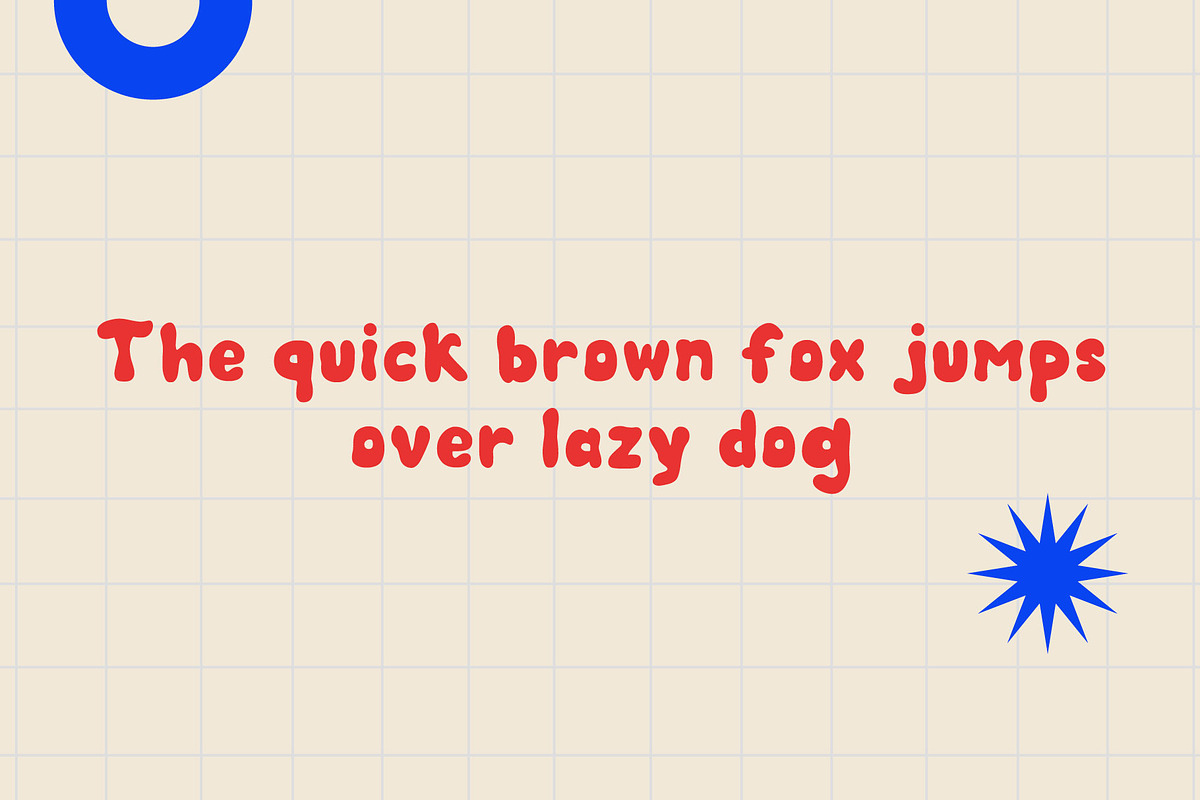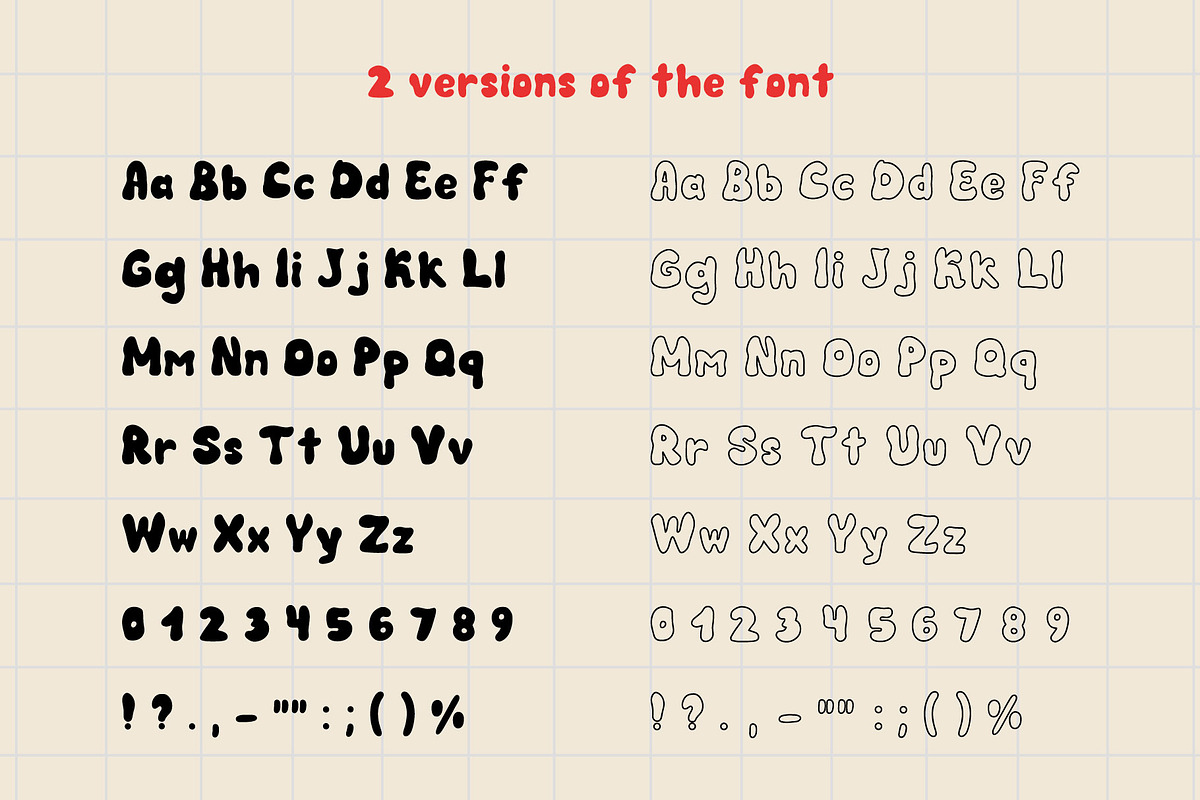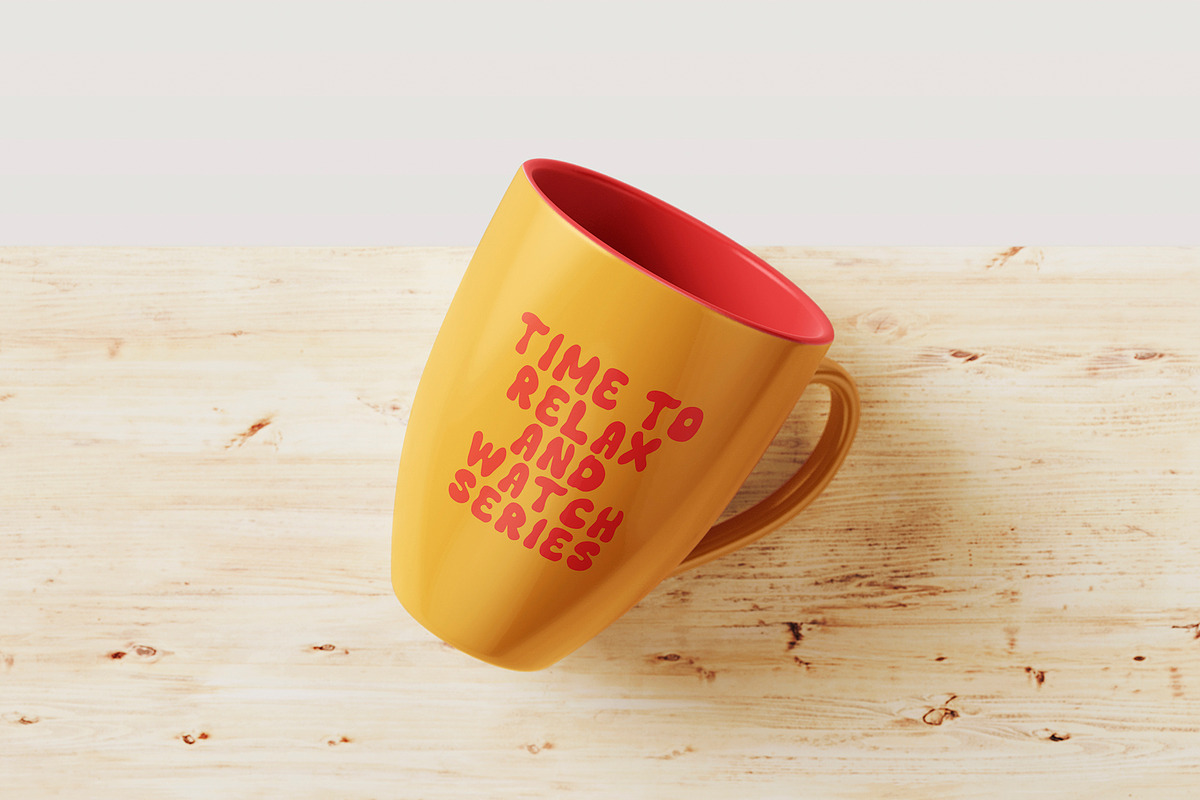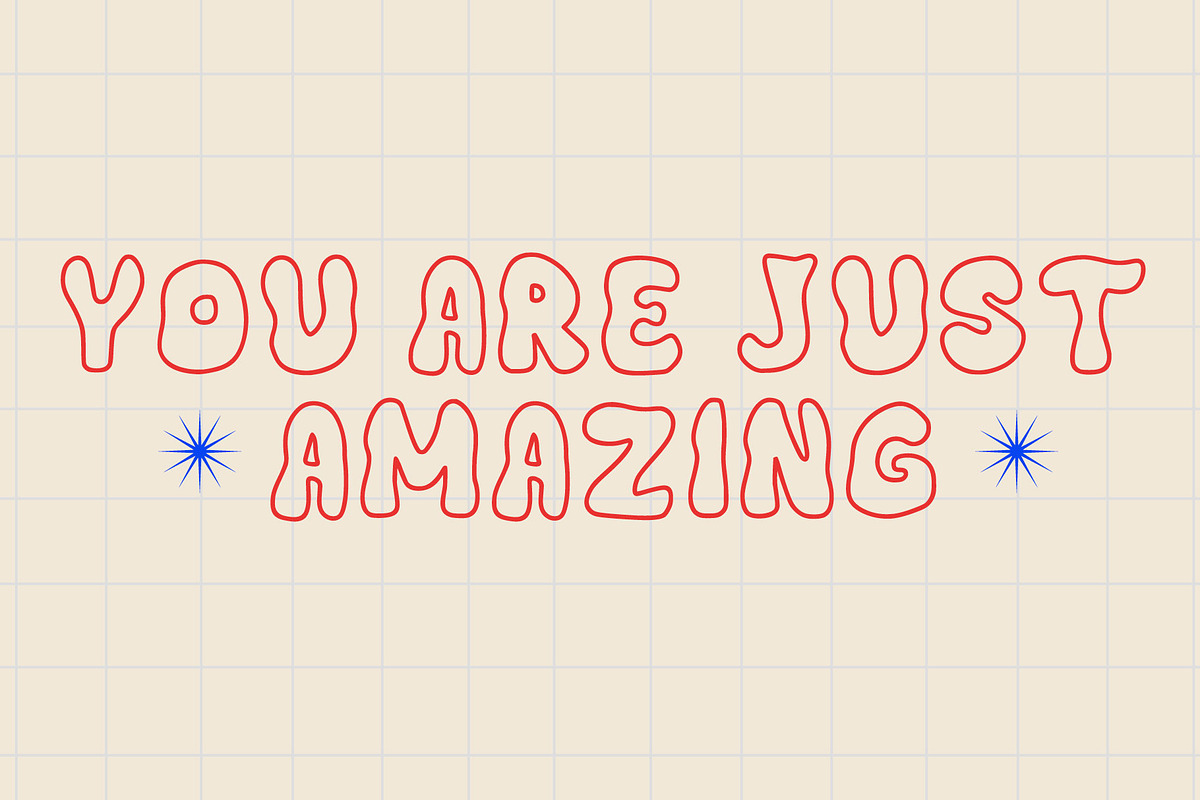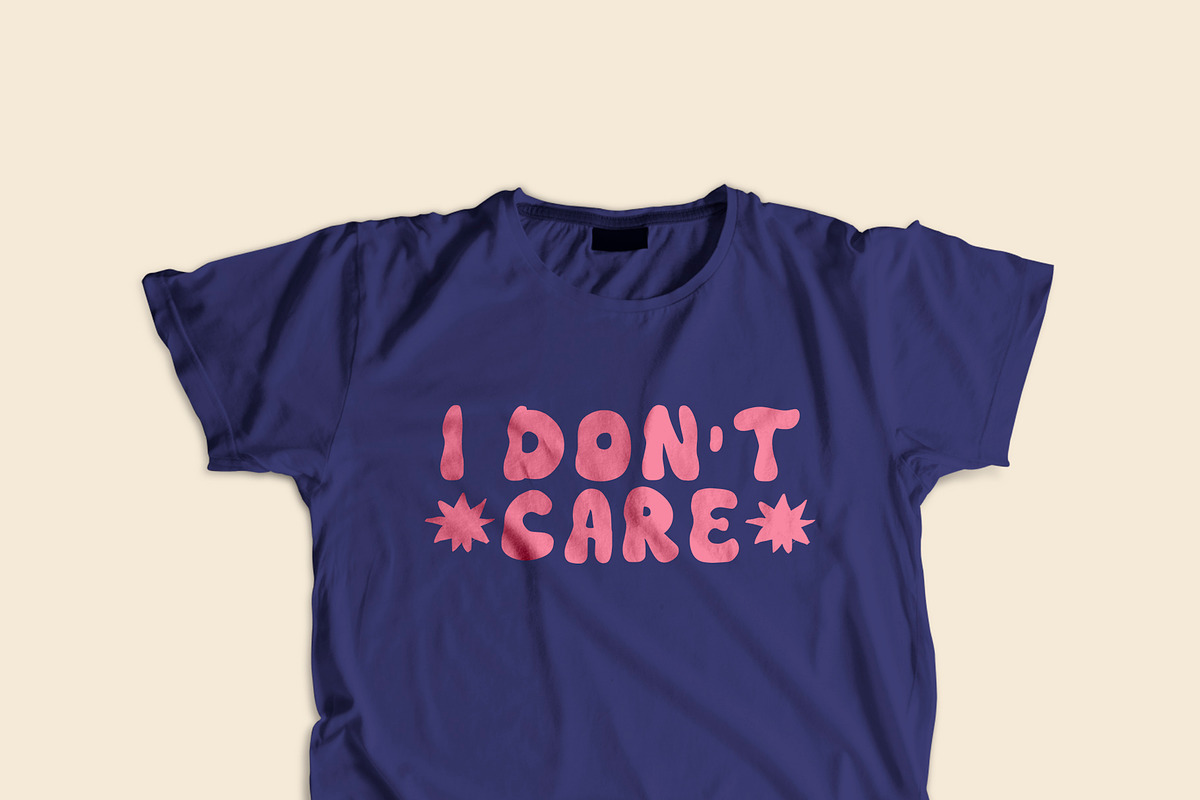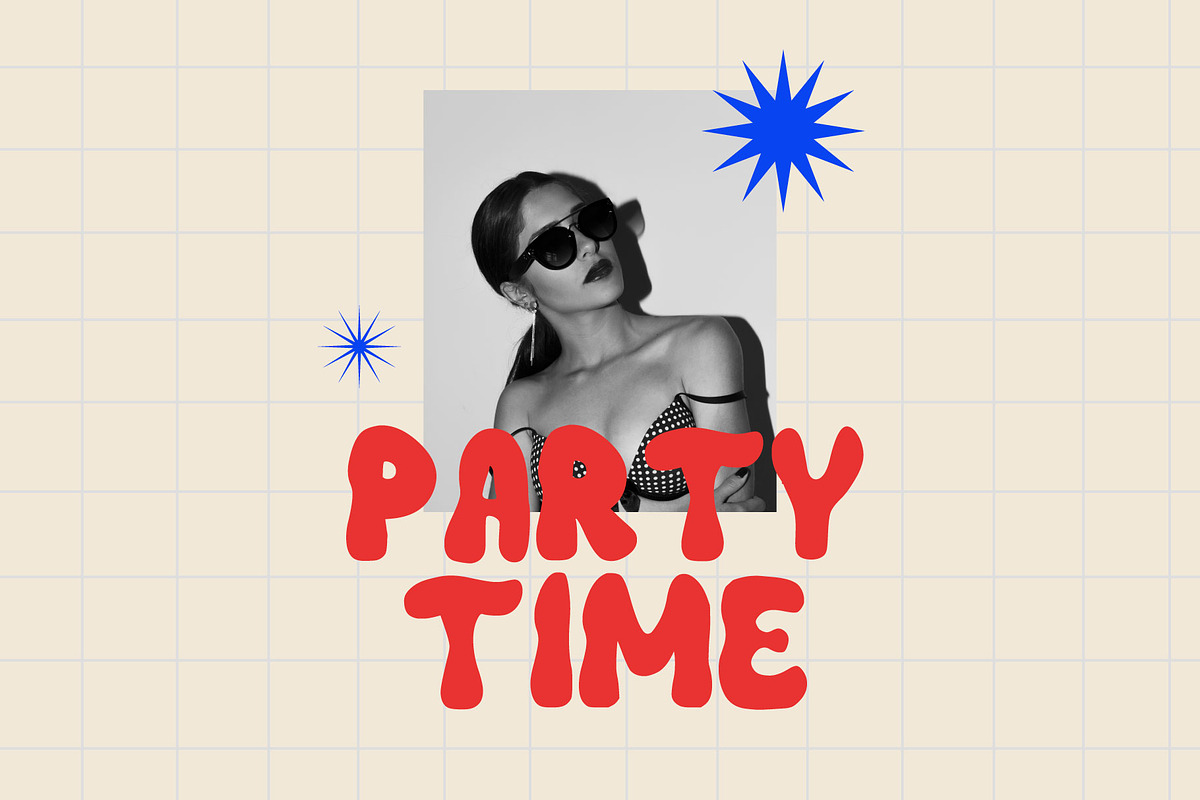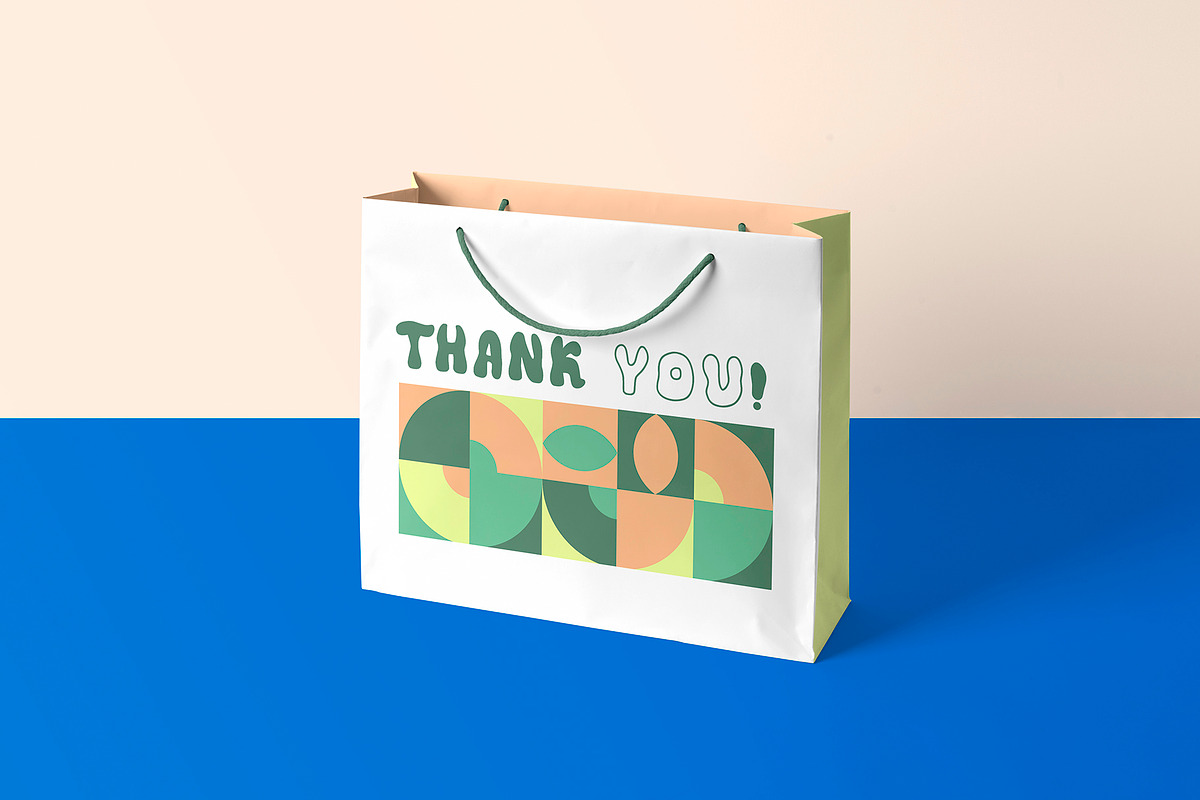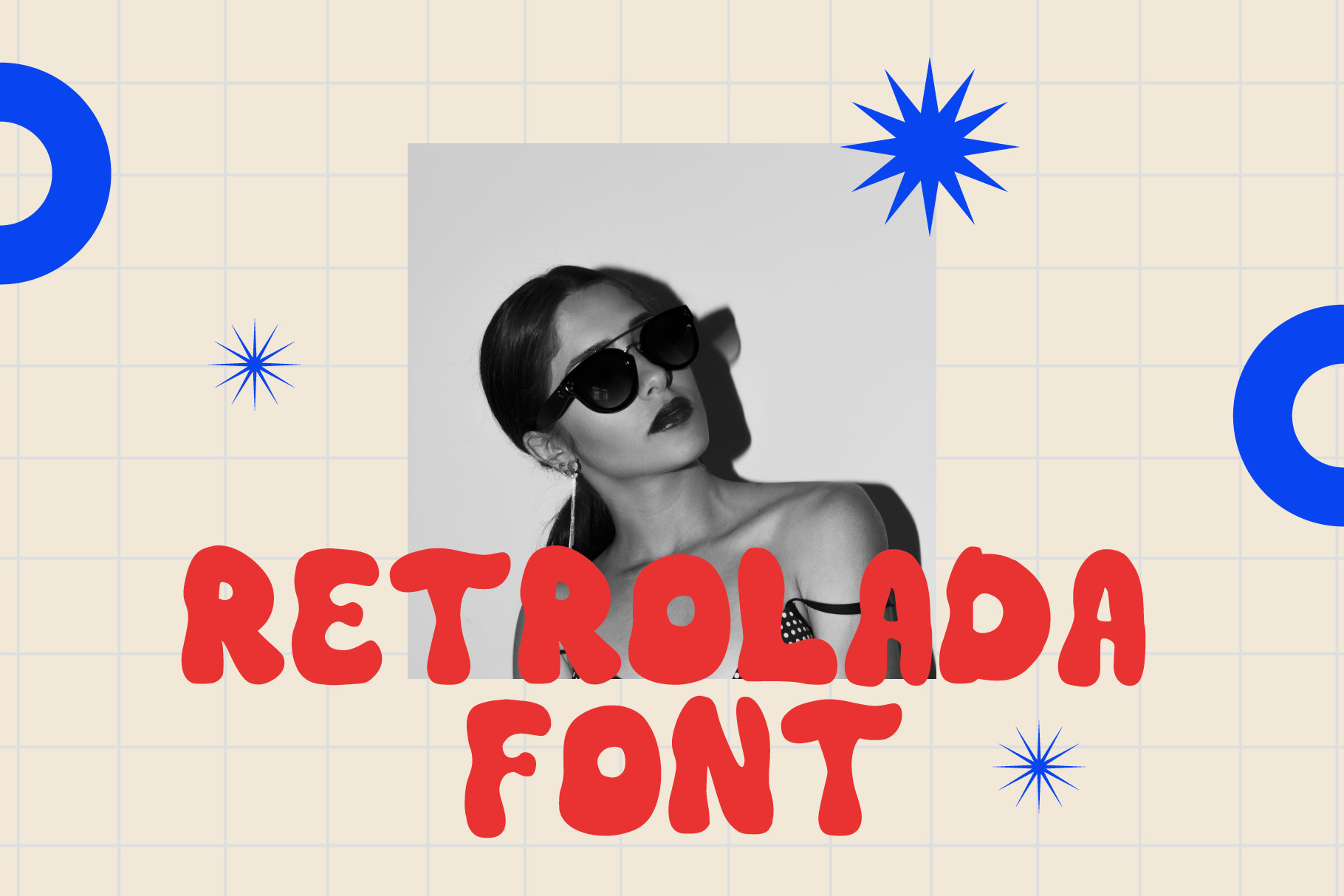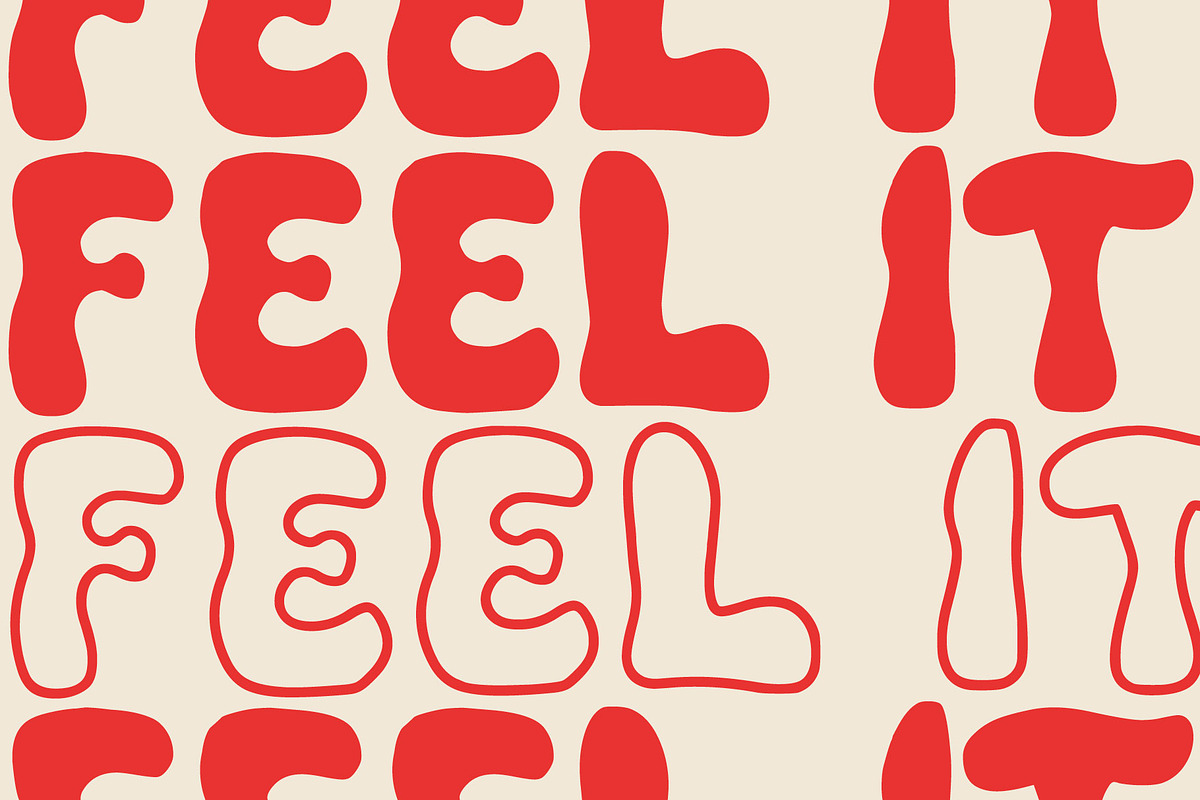
RETROLADA - retro font
ENGLISH ONLY
Retro handwritten font
You can use it for quotes, posters, social media ads, postcards, and much more! Add a hand-written touch to your projects and make them more fun! It works perfectly for headlines.
This font can be used to create fun, beautiful, and outstanding things!
You will get two versions of this font (regular and outline ver)